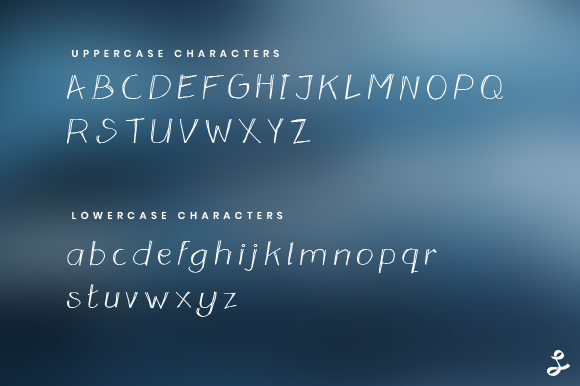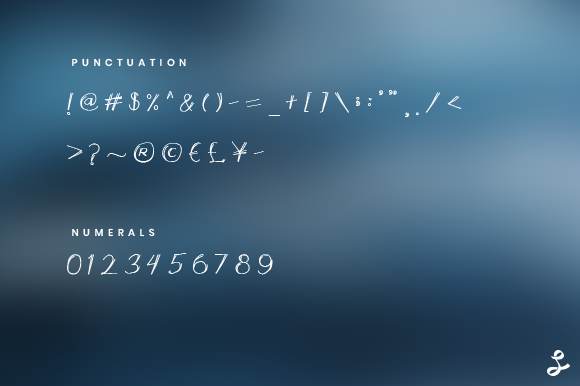
Introduction to Nevermind Font
Have you ever stared at a blank page, struggling to find the perfect font to capture the essence of your creative project? You’re not alone. We’ve all been there, scrolling through design resources, searching for that elusive font that elevates our work to the next level. And then, like a breath of fresh air, you stumble upon Nevermind Font – a stunning script font that breathes life into your designs.
With its unique blend of classic typography and modern flair, Nevermind Font is the perfect addition to any design project. Whether you’re working on a web design, print materials, or even animated videos, this high-quality font is sure to make a lasting impression. And the best part? Nevermind Font is available for free download, complete with a transparent background that lets your creativity shine through.
Key Features of Nevermind Font
- High-quality design resource suitable for creative projects, available for free download.
- This versatile font features a transparent background, allowing for easy layering and composition in design projects.
- The Nevermind Font is available in 4 styles: Regular, Italic, Bold, and Bold Italic, providing users with a range of options for their creative project.
- The Nevermind Font is designed to be highly legible, with clear and crisp typography that works well in a variety of design contexts.
- Perfect for designers and artists looking for a high-quality, free design resource to elevate their creative project.
Honest Review: Nevermind Font
As a designer, I’m always on the lookout for high-quality fonts to elevate my creative projects. The Nevermind Font is a recent addition to my design resource library, and I’m excited to share my honest review.
Here’s what I like about the Nevermind Font: ✨
- Unique style**: The Nevermind Font has a distinctive, hand-drawn feel that adds a touch of personality to any design.
- High-quality glyphs**: The font includes a wide range of glyphs, from common letters and numbers to special characters and punctuation marks.
- Transparent background**: The Nevermind Font is a solid-colored font, which makes it easy to use in designs with transparent backgrounds.
- Limited language support**: The Nevermind Font primarily supports the Latin alphabet, so it may not be suitable for designs that require multiple languages.
- No bold or italic weights**: While the font is well-designed, it’s only available in regular weight, which may not provide enough variety for some designs.
Overall, I’m impressed with the Nevermind Font’s unique style and high-quality glyphs. While it may have some limitations, it’s a great addition to any designer’s library, especially for free download. With a little creativity, you can make the most of this versatile font.
The Nevermind Font is a versatile design resource that offers a high-quality, unique look for your creative project. It is available for free download, making it an excellent choice for designers of all levels.
To get the most out of the Nevermind Font, experiment with different font sizes, colors, and combinations. Use it for emphasis, headings, and titles to add a touch of sophistication to your design.
The Nevermind Font is suitable for various creative projects, including:
- Logos and branding
- Editorial and publishing